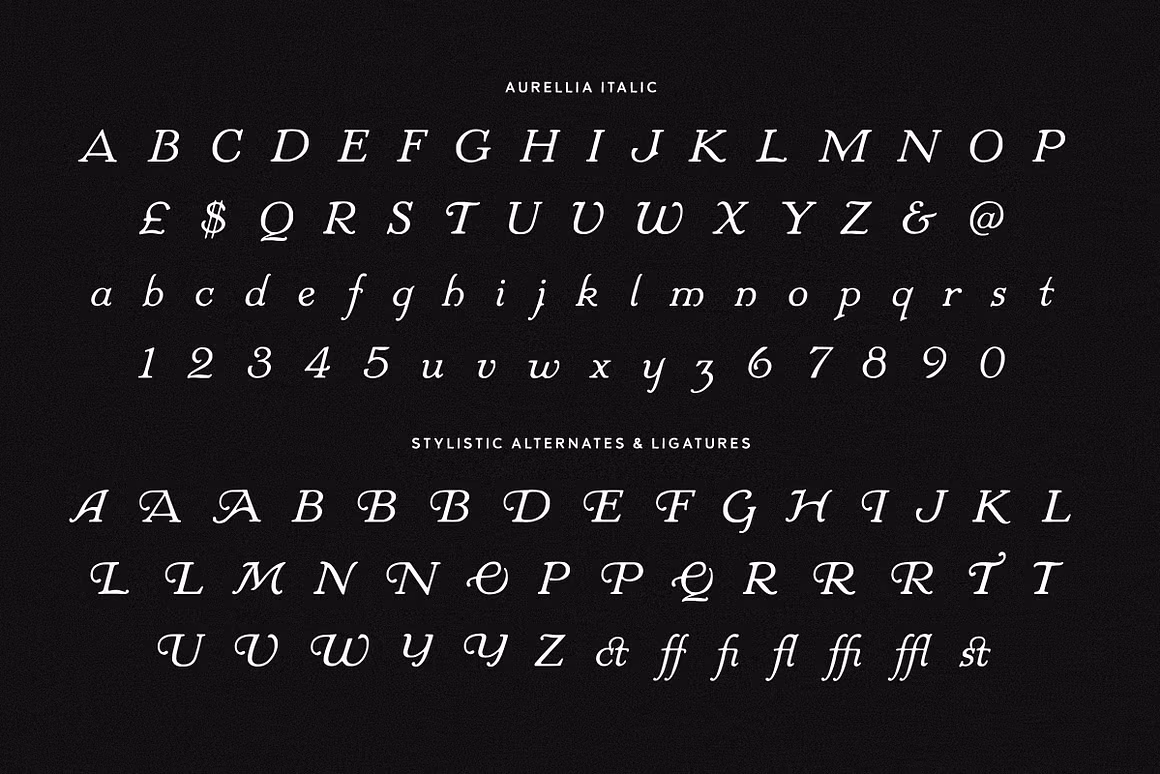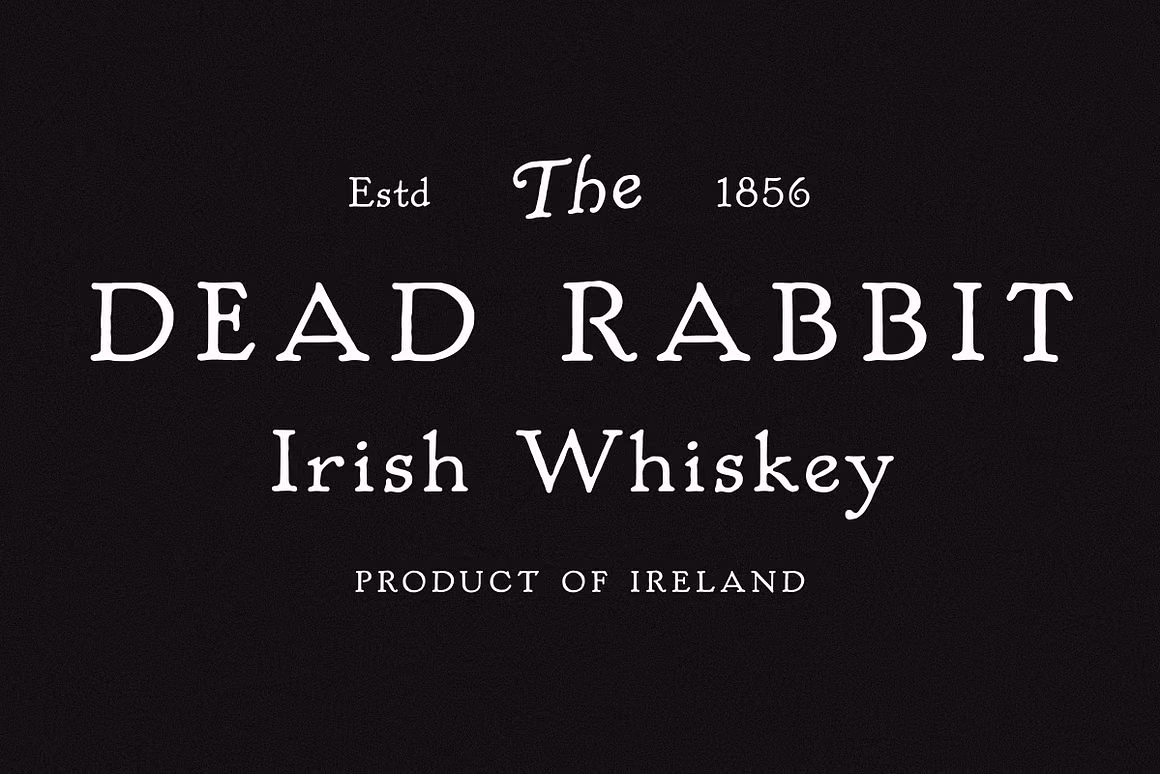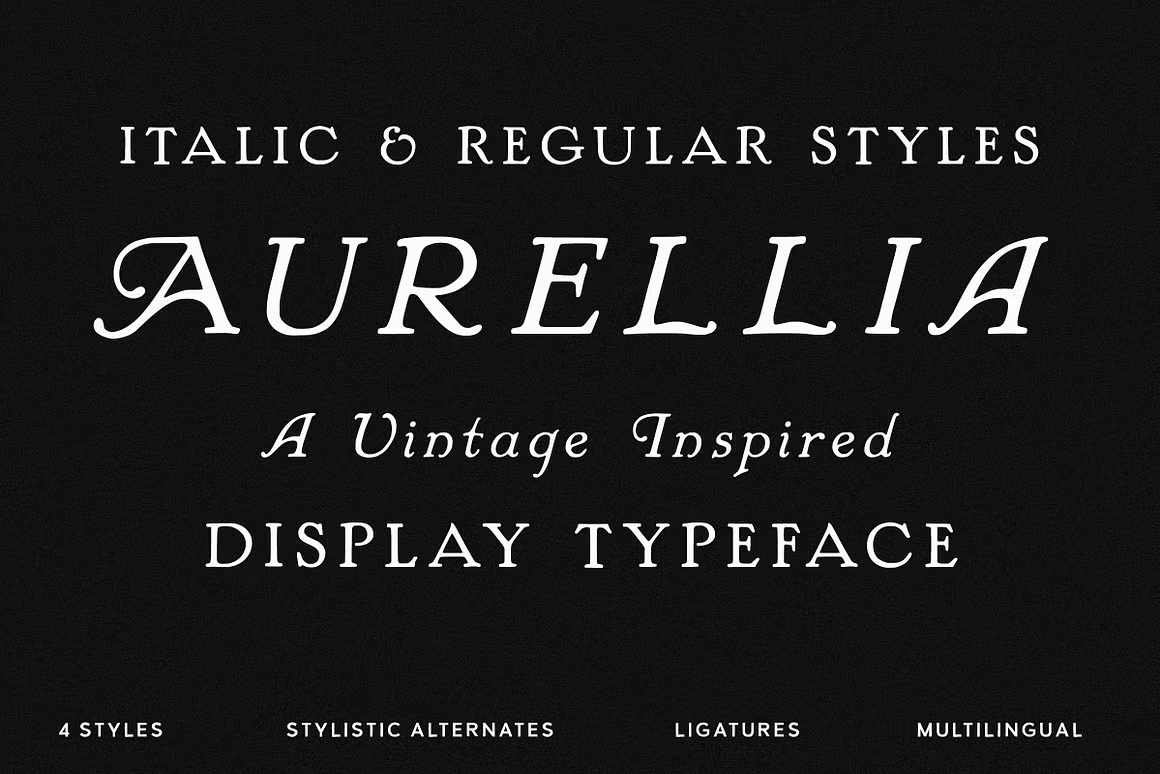
Aurellia is a vintage display typeface with just the right mix of elegance and character. Its refined serifs and subtle quirks give it an old-world feel, while its clean detailing makes it easy to use in modern design. Whether you’re working on a book cover, a brand identity, editorial layouts, or packaging, Aurellia adds that touch of timeless style without feeling overworked.
The family includes both Regular and Italic styles, each with Standard and Rounded versions. You’ll also find a range of stylistic alternates and classic ligatures, making it a versatile toolkit for projects that need sophistication with personality.